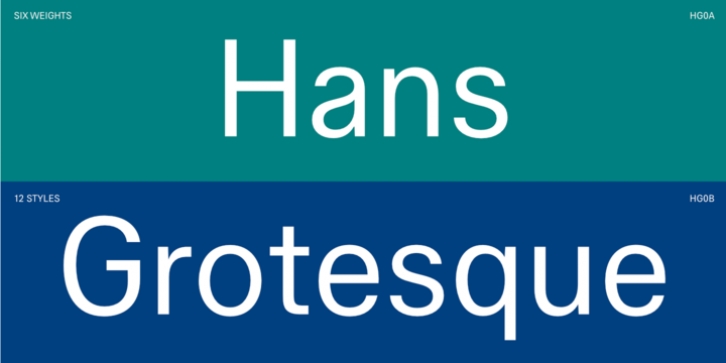
Hans Grotesque downloadDesigner: Alfredo Marco Pradil
Publisher: Hanken Design Co.
Hans Grotesque, is a smartly designed sans serif typeface. Its beauty is found in its utter simplicity; crisp lines take a no-nonsense approach, conveying messages clearly and in a very straightforward manner. The neutrality of Hans Grotesque makes it a practical choice for a wide variety of projects, including editorial applications, corporate correspondence, white papers, business cards, mobile apps, and web content.
Hans Grotesque is available in six weights with corresponding italics for each, with multilingual support that extends to Basic Latin, Western European, Euro, Central European, and Pan African Latin. Additional features include case sensitive forms, standard ligatures, discretionary ligatures, and fractions.